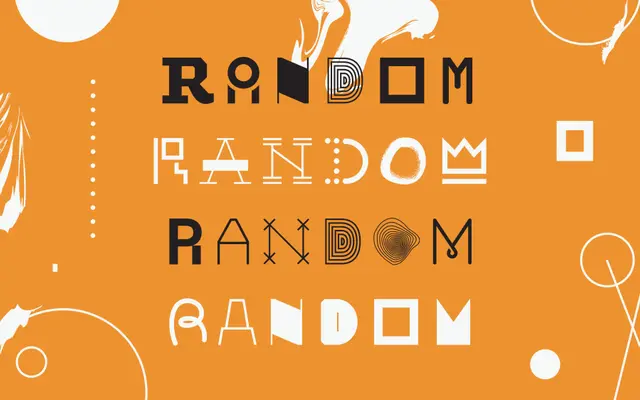
A single-weight display typeface that uses six glyph alternates per character to produce automatic contextual variation and a curated sense of disorder.
Originally released in 2014 and brought back from the vault, Random builds its personality through inconsistency rather than uniformity. Each glyph has six alternates split across lowercase and uppercase, which shuffle automatically to prevent repetition and give set text an organic, hand-crafted feel. The result is a bold display face that reads as effortlessly varied while remaining visually coherent across a wide range of Latin-based languages.
Random is a bold display typeface built around deliberate inconsistency, using six alternating glyph variants per character to produce contextual variation. Its extreme letterforms and expressive weight place it firmly in the display category.